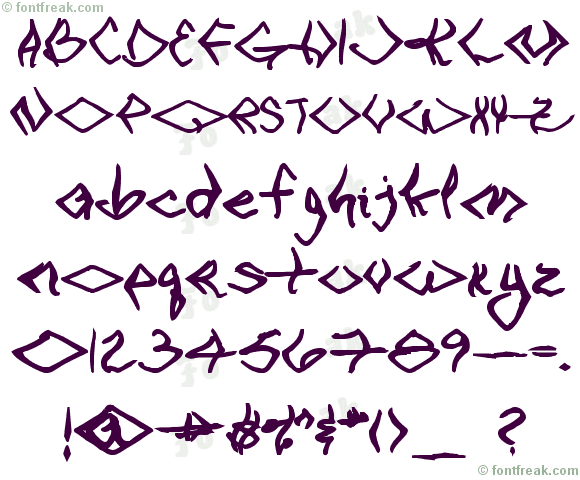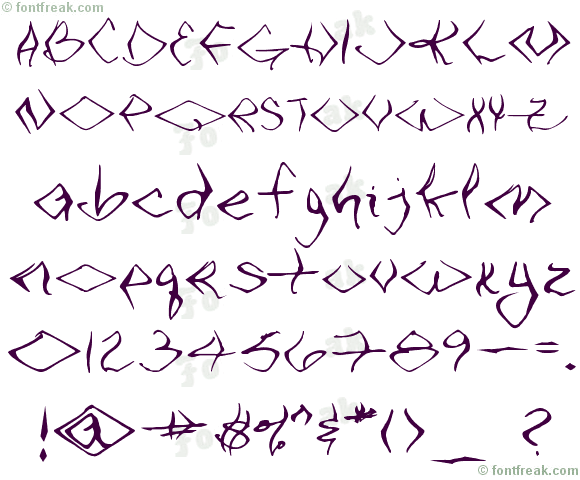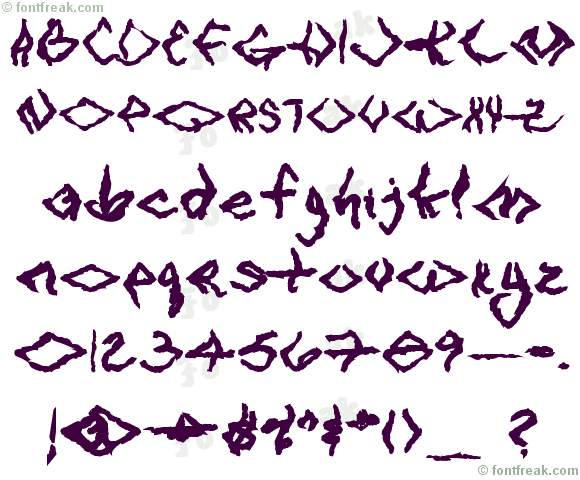
About See Jo Bend
See Jo Bend, designed by Wolfbainx, is a unique display typeface that captures attention with its playful and dynamic design. This font falls into the decorative category, characterized by its bold strokes and whimsical curves that create an engaging visual experience. The stroke weight varies throughout the letters, offering an interesting contrast that draws the eye. The spacing is thoughtfully designed, ensuring readability while maintaining a lively appearance. Each character features distinct flourishes that add a touch of personality, making it a standout choice for creative projects.
This font is ideal for a variety of use cases. Its vibrant personality makes it perfect for wedding invitations, where it can convey a sense of joy and celebration. Additionally, See Jo Bend works beautifully on movie posters, helping to capture the thematic essence of films with its energetic style. Restaurant menus can also benefit from this typeface, particularly for establishments that wish to showcase a fun and inviting atmosphere. Furthermore, it is an excellent choice for branding materials, allowing small business owners to create a memorable identity that resonates with their audience.
What truly sets See Jo Bend apart is its ability to blend playfulness with sophistication, making it versatile for various applications. Whether you are designing a vibrant poster or a charming invitation, the See Jo Bend font free download offers a distinctive flair that can elevate your work and leave a lasting impression.